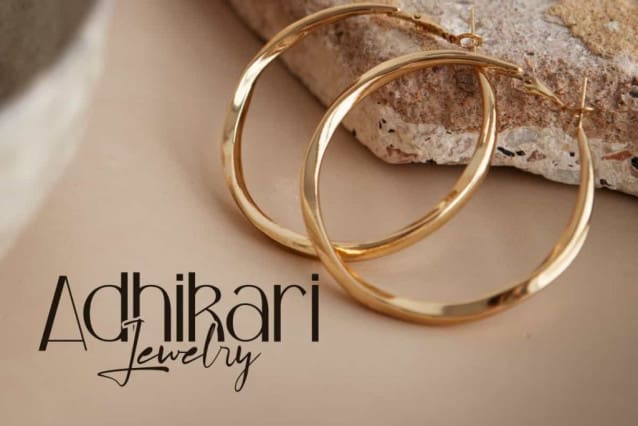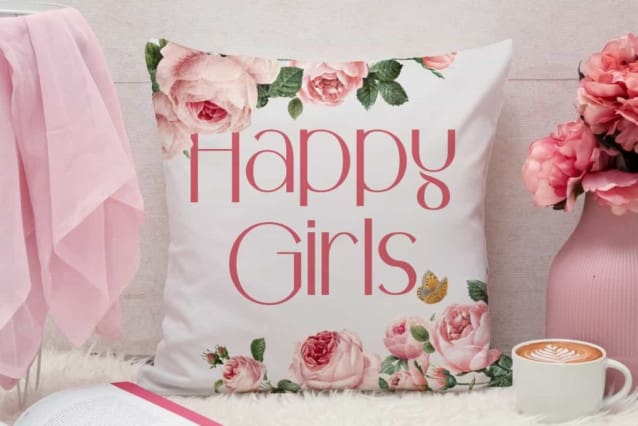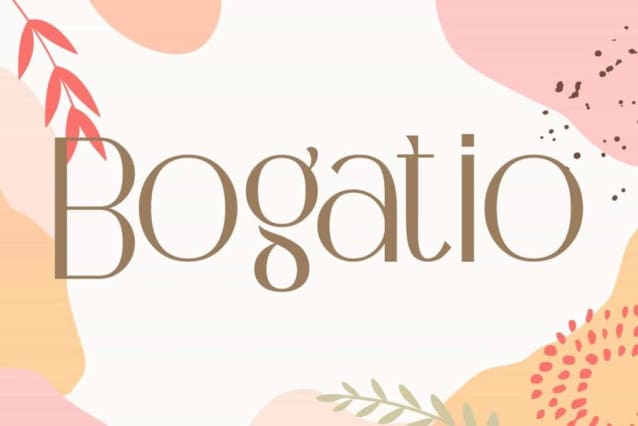
Bogatio Font
Bogatio Font is a fancy, sleek and elegant display font. This font has lines that are not too thin with a unique combination of shapes that make it look charming. It will suits many designs, such as brochure, business card, custom design, gift box, invitation, label, product packaging, quote, screen printing, signage, stationery, website, and more!
Bogatio Font includes full set of Uppercase and Lowercase Basic Characters, Numerals, and Punctuation. This font is inspired by fancy jewelry and will be suitable for many industries, such as advertising, beauty product, event or wedding organizer, fashion, florist, furniture, handicraft, jewelry and accessories, resort, restaurant, etc.